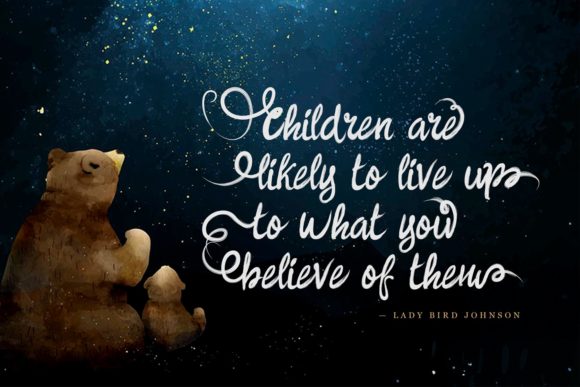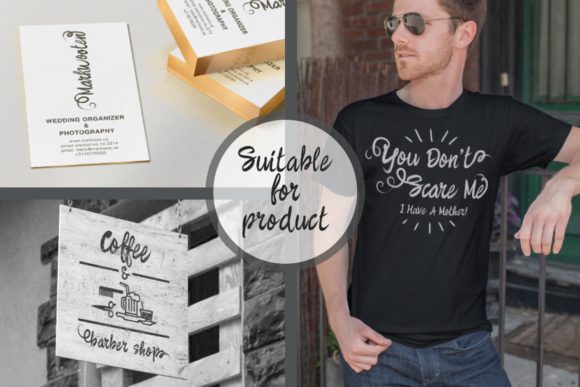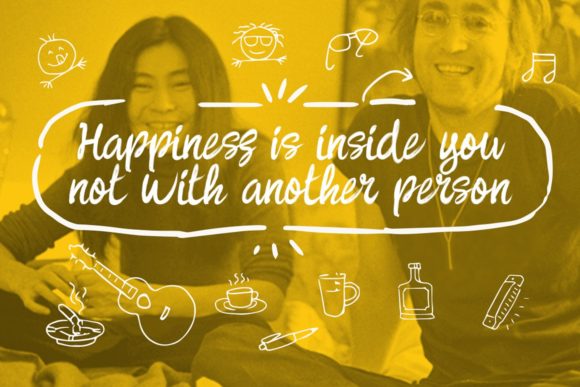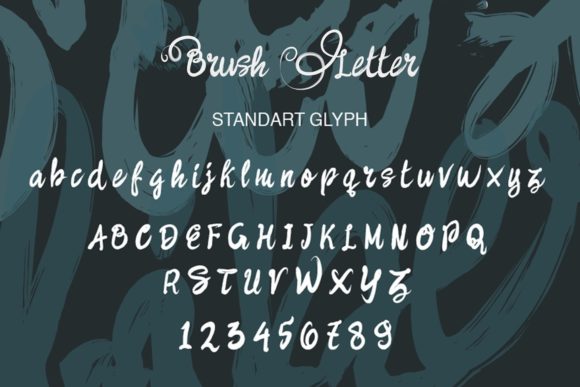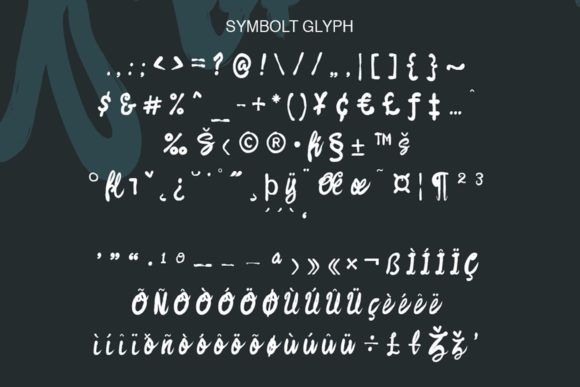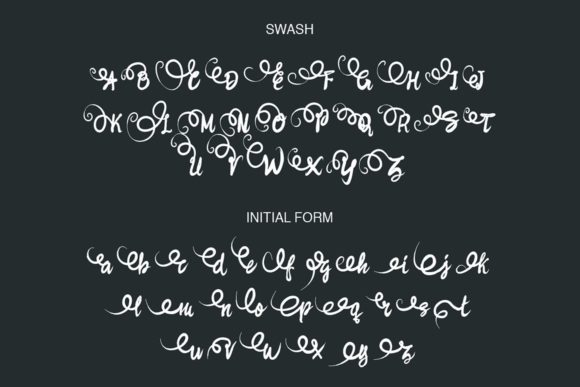
Adding a Personal Touch with the Brush Letter Font
As designers, we’ve all been there – staring at a blank page, trying to convey a message that requires a little extra something special. For me, it’s always about finding the perfect font to set the tone and make the design pop. And that’s where the Brush Letter Font comes in – a delicate, timeless handwritten font that adds a touch of elegance to any design.
This versatile font is perfect for wedding invitations, thank you cards, quotes, and more. Its varying baseline, smooth lines, gorgeous glyphs, and stunning alternates make it a valuable asset for designers looking to add a handwritten touch to their work. With the Brush Letter Font, you can create unique and eye-catching designs that leave a lasting impression.
- Unique Characteristics: The Brush Letter Font features a unique, hand-painted style with subtle brush strokes and texture, giving it a personal and artistic touch.
Designer Review: Brush Letter Font
I recently had the chance to work with the Brush Letter Font, and I must say it’s a mixed bag. On the one hand, there are some things that work really well ✨.
- Unique Character: Brush Letter Font has a distinct, hand-painted feel that sets it apart from more traditional fonts.
- Expressive: The font is great for adding a touch of personality to your designs, and the expressive nature of the brushstrokes can really make your text pop.
- Good for Titles: Brush Letter Font is perfect for titles, headings, and other large blocks of text where you want to make a statement.
However, there are also some limitations ⚠️.
- Readability: The font can be a bit difficult to read, especially at smaller sizes, due to the irregular spacing and letterforms.
- Limited Versatility: While Brush Letter Font is great for titles, it may not be the best choice for body text or other areas where readability is a top priority.
- Not Ideal for Long Text: The font can be tiring to read for extended periods, making it less suitable for long blocks of text.
Overall, I’d say Brush Letter Font is a solid choice for designers looking to add a touch of personality to their work, but it’s not a font for every occasion. Use it wisely, and you’ll be just fine!
Brush Letter Font is perfect for creating hand-drawn, distressed, or vintage-style designs. Use it to add a personal touch to invitations, social media graphics, or advertising materials. You can also use it to create custom logos, icons, or typography-based designs.